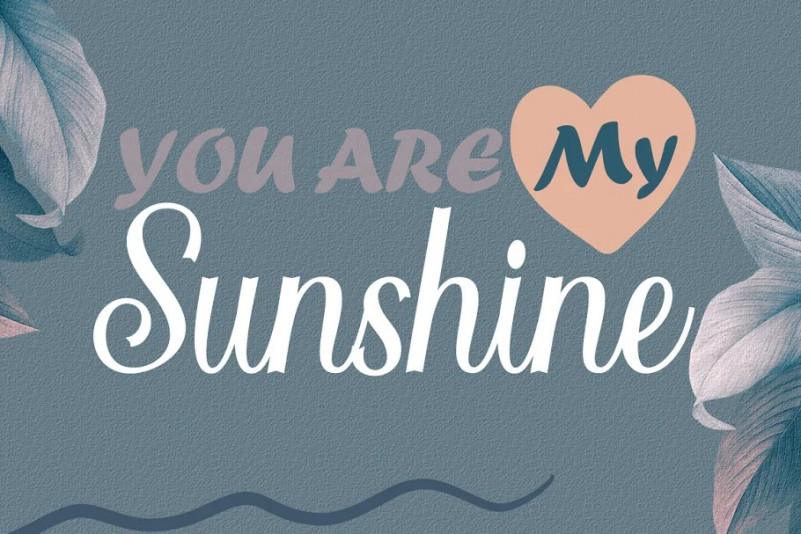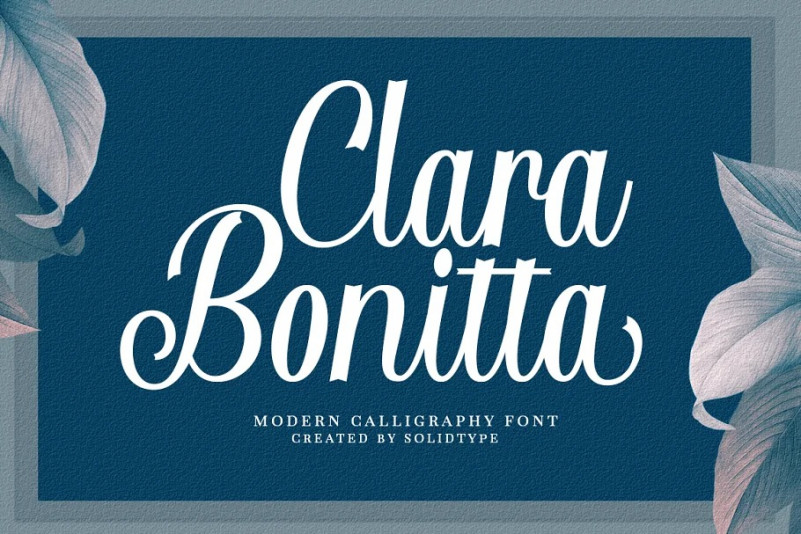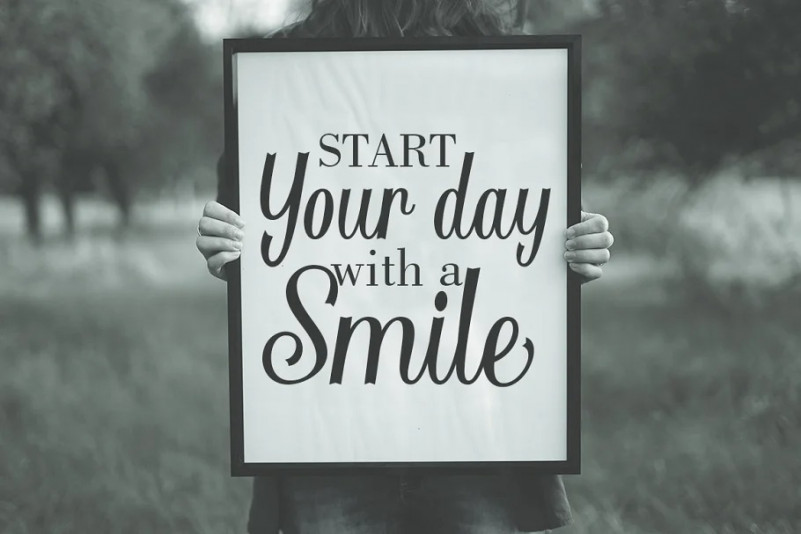
Clara Bonitta Font
Clara Bonitta Script Font – A contemporary calligraphy, with a vintage feel, style calligraphy with moving baseline and elegant touch. That makes the font look fabulous! Can be used for various purposes.such as headings, signature, logos, wedding invitation, t-shirt, letterhead, signage, lable, news, posters, badges etc.